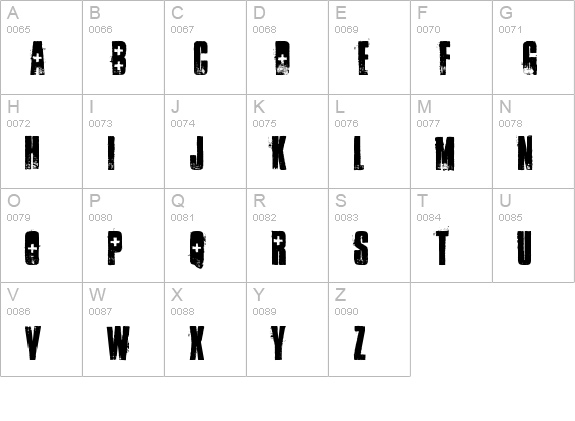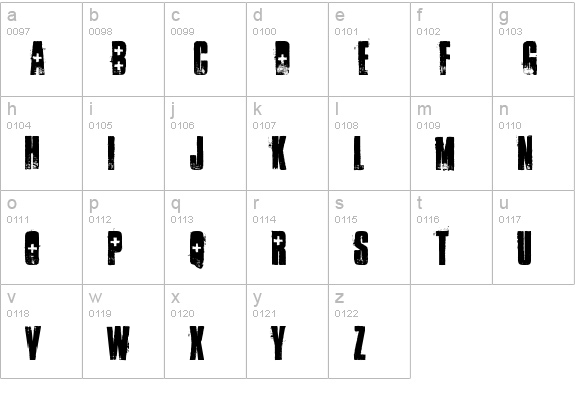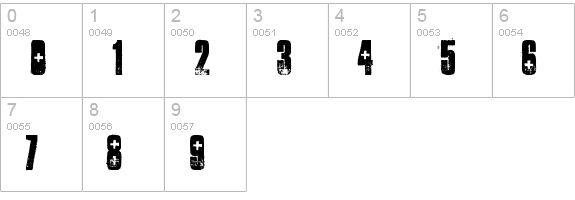
ambulance shotgun Font Details
Introducing Ambulance Shotgun Font - a bold and dynamic typeface that exudes a sense of urgency and modernity. This striking font is perfect for projects that require a strong and impactful visual presence. The sharp edges and unique design of Ambulance Shotgun Font make it stand out from the crowd and leave a lasting impression. What makes Ambulance Shotgun Font even more appealing is that it is available for free download at FontsMarket.com. This means that you can add this powerful font to your collection without any cost, making it a valuable resource for designers, creatives, and anyone looking to make a statement with their typography. Don't miss out on the opportunity to elevate your projects with the eye-catching Ambulance Shotgun Font. Download it for free today and unleash its potential in your designs!